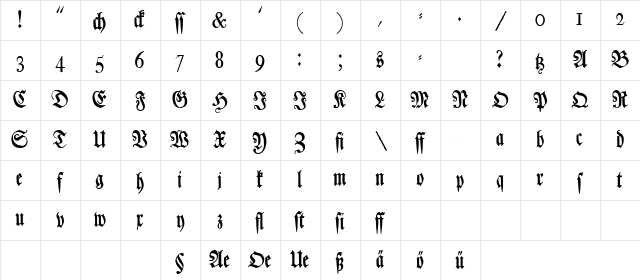
Complete Luthersche Fraktur Regular glyph index. Displaying only characters natively supported by Luthersche Fraktur Regular font.
Luthersche Fraktur draws on the rich tradition of blackletter calligraphy, with dense, angular strokes that evoke medieval manuscripts and old-world craftsmanship.
Font Pairing: Pair with a clean neutral sans-serif for body copy to let Luthersche Fraktur's character lead without overwhelming the composition.
Pro Tip: Reserve Luthersche Fraktur for display and logo use - pair it with a clean sans-serif for body copy to prevent the composition from feeling oppressive.